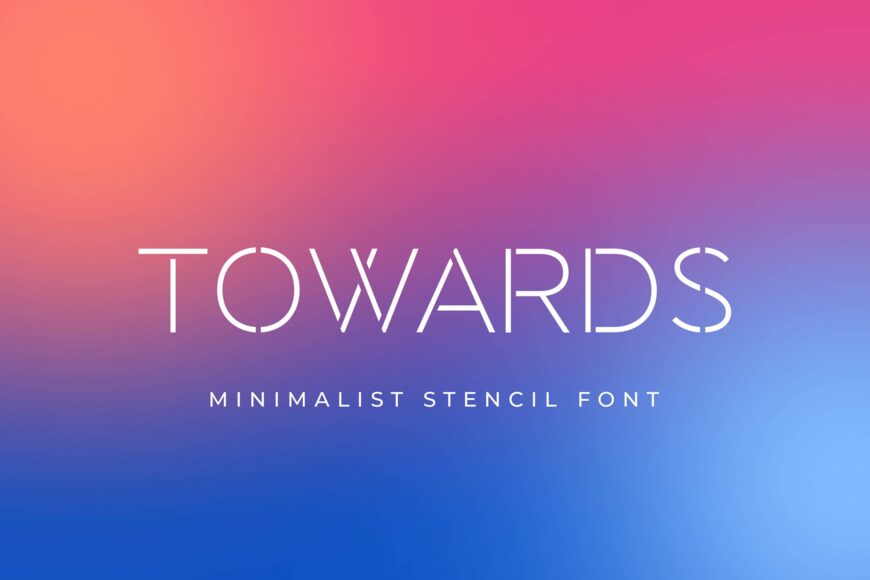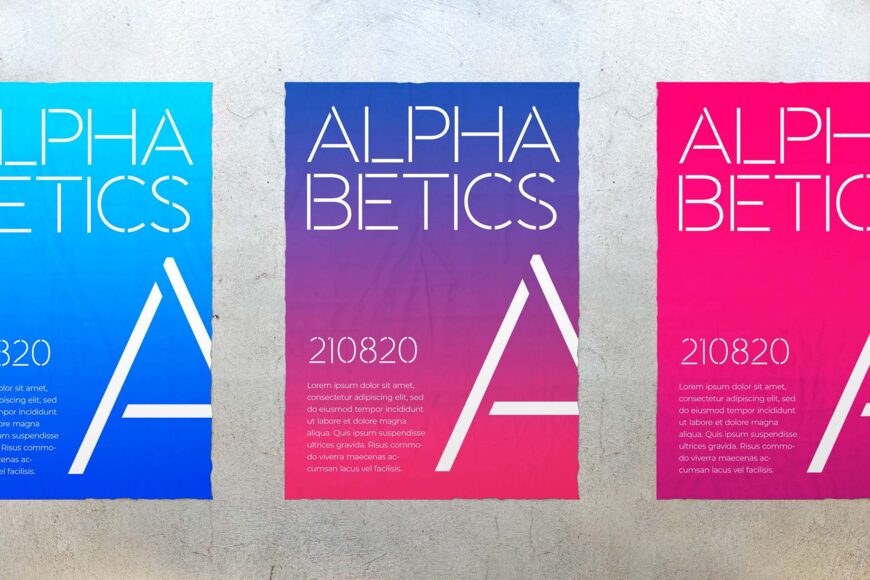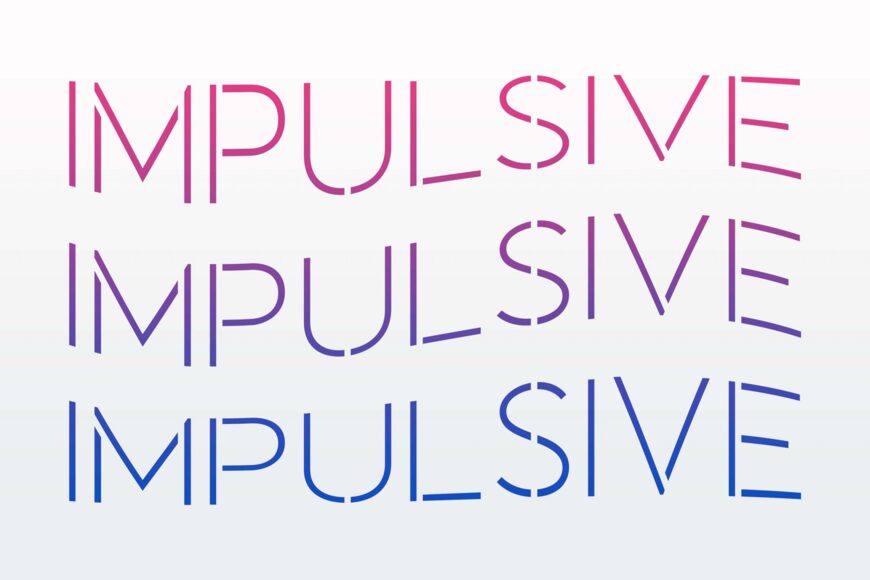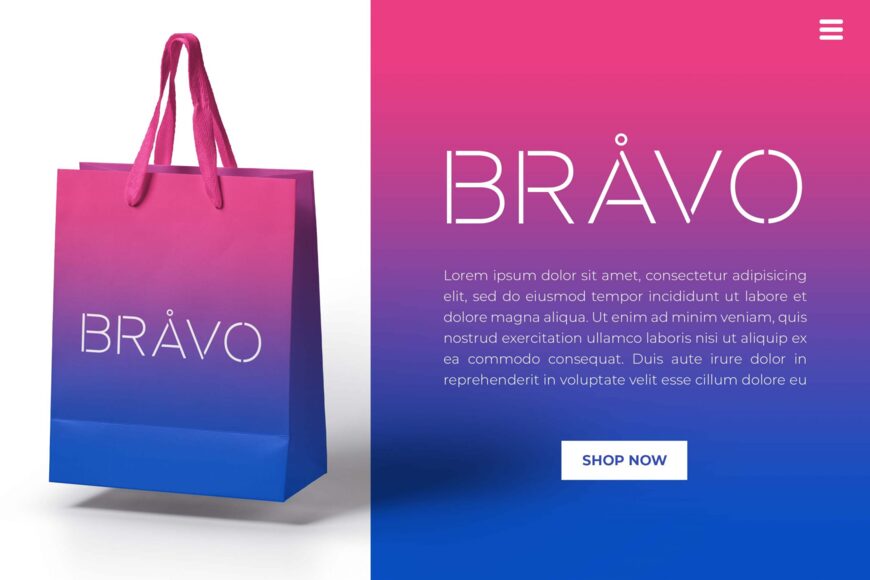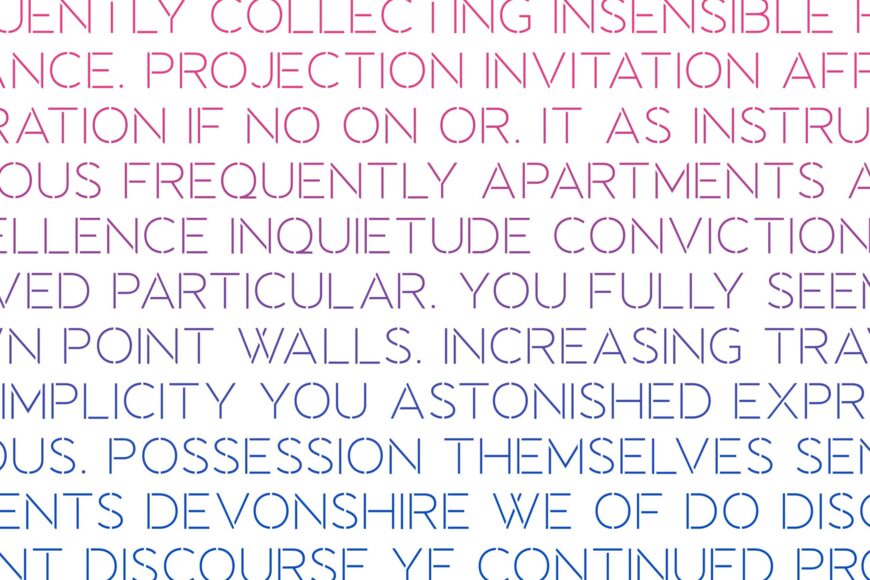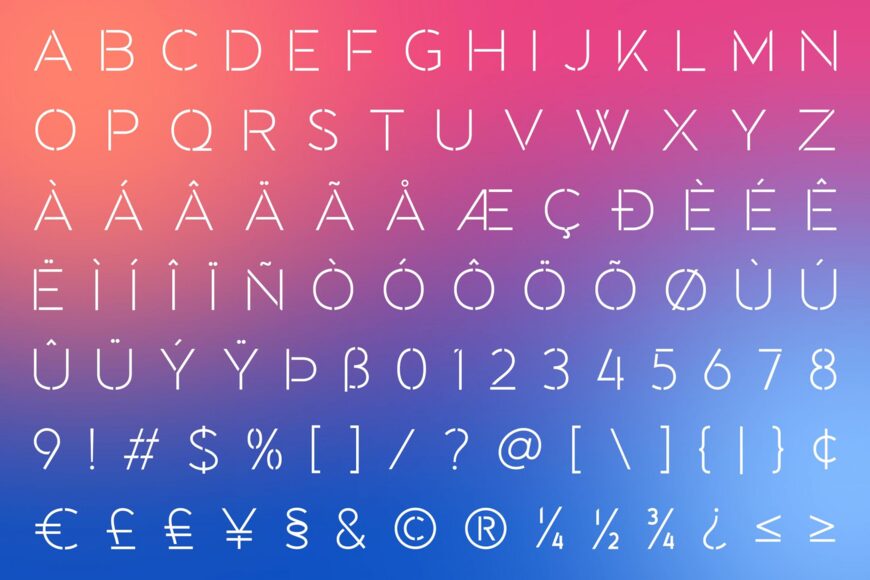
Towards Font
Towards is a minimalist stencil display font that blends clean lines, geometric details, and a refined contemporary character. Its distinctive letterforms and circular accents create a stylish, balanced look that works beautifully for logos, branding, packaging, editorial titles, invitations, and advertising.